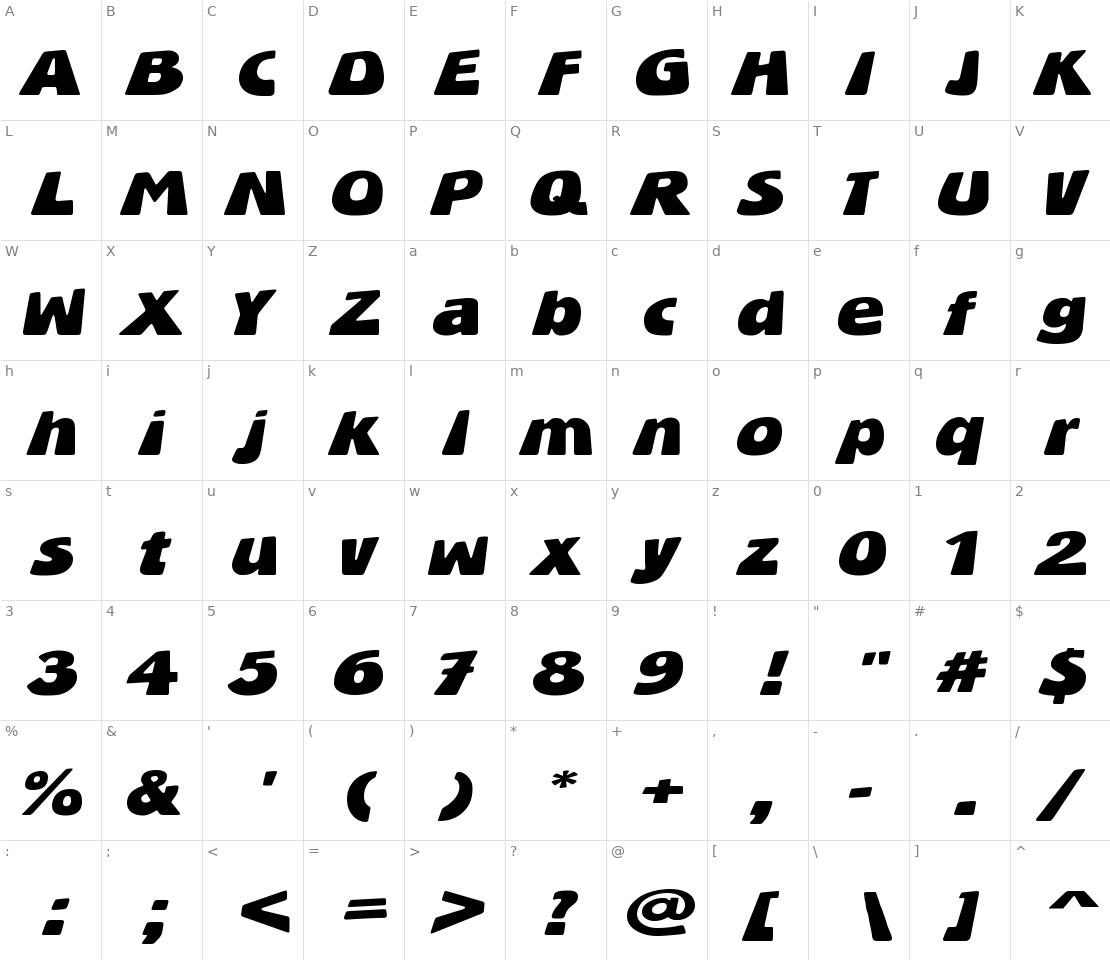
BlueStone
by Frank Kiener
BlueStone is a bold, wide display face from Frank Kiener with heavily rounded terminals and a forward-leaning italic stance that gives it a casual, energetic momentum. The letterforms are thick and generous, carrying real visual weight while staying approachable and modern. Best for headlines, logos, and display settings where you want something chunky and friendly that still commands the page.